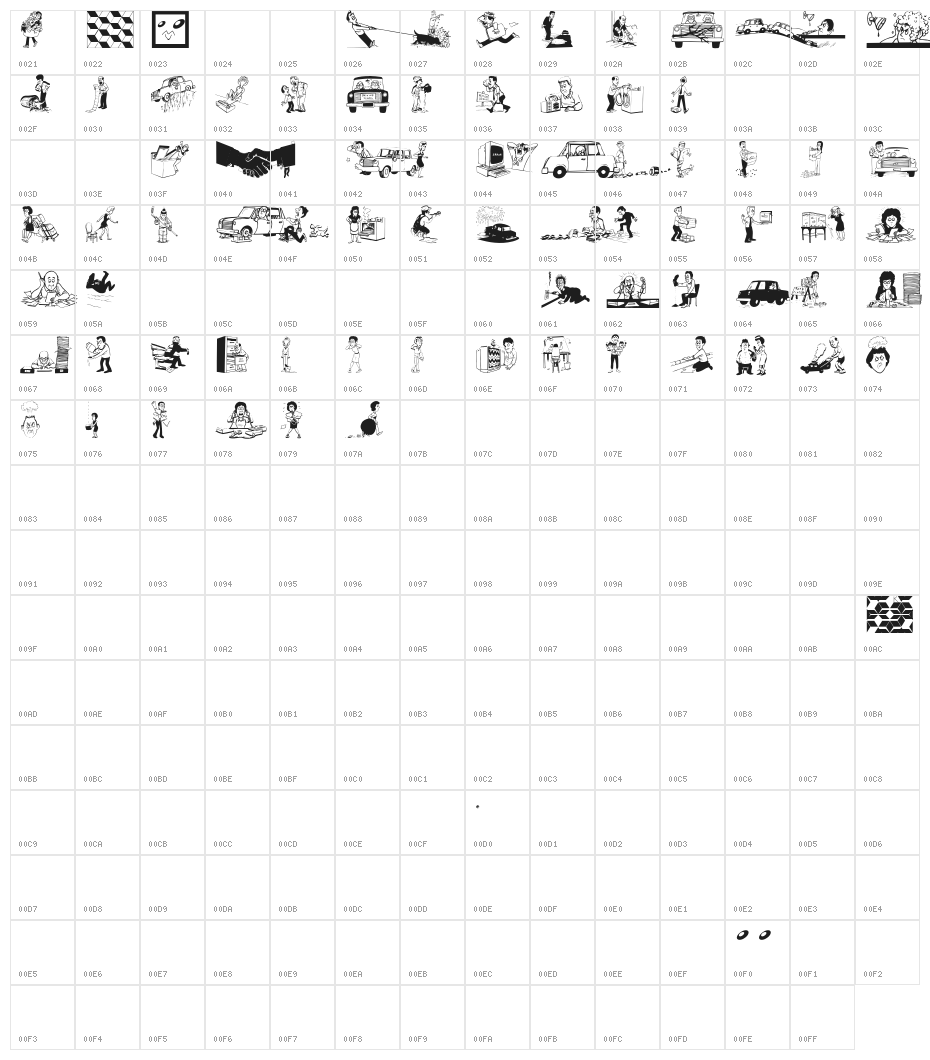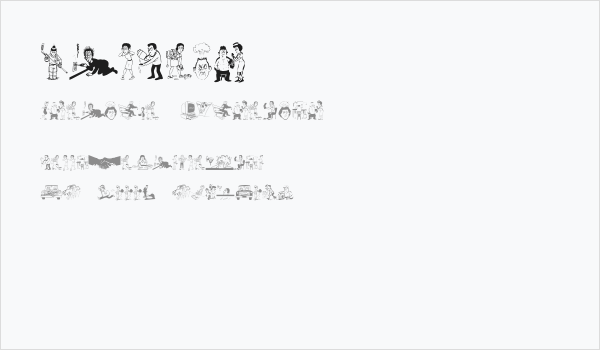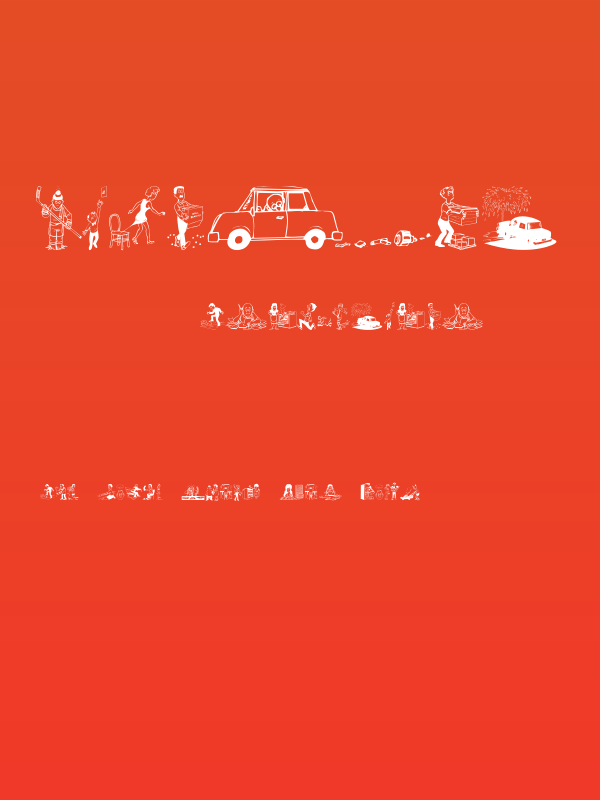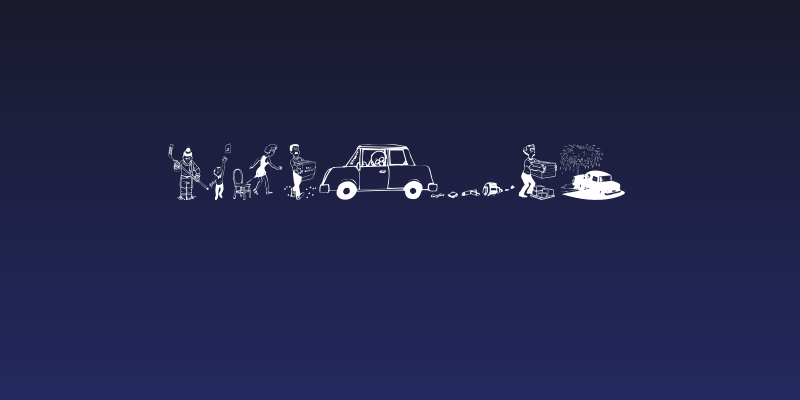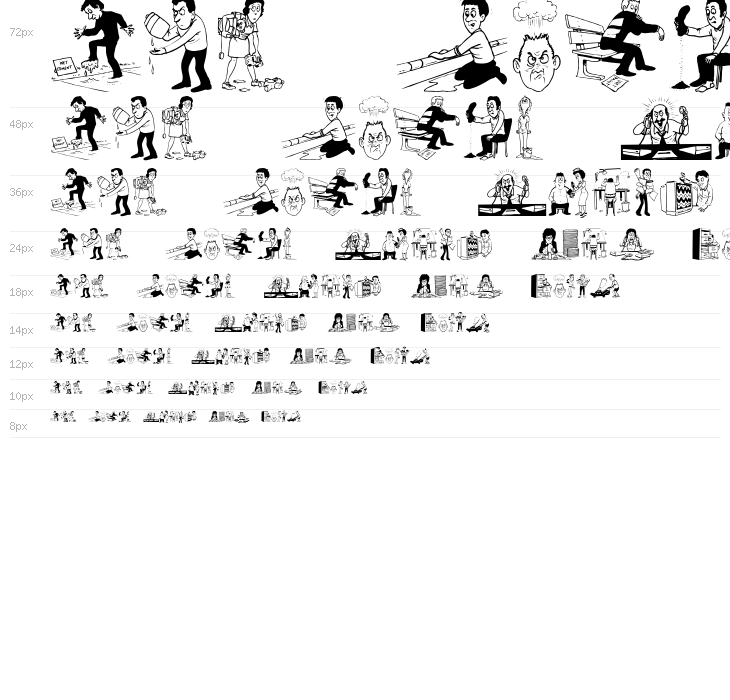
Malheur Font
Malheur Description
A dingbat-style font composed of detailed black and white cartoon illustrations depicting various everyday scenes and characters engaged in different activities.
| Overall Style | Humorous, Informal, Narrative |
| Use Case | Decorative elements, comics, playful graphic projects |
| Proposed Projects | Use in comic books, humorous posters, informal invitations, and creative editorial designs. |